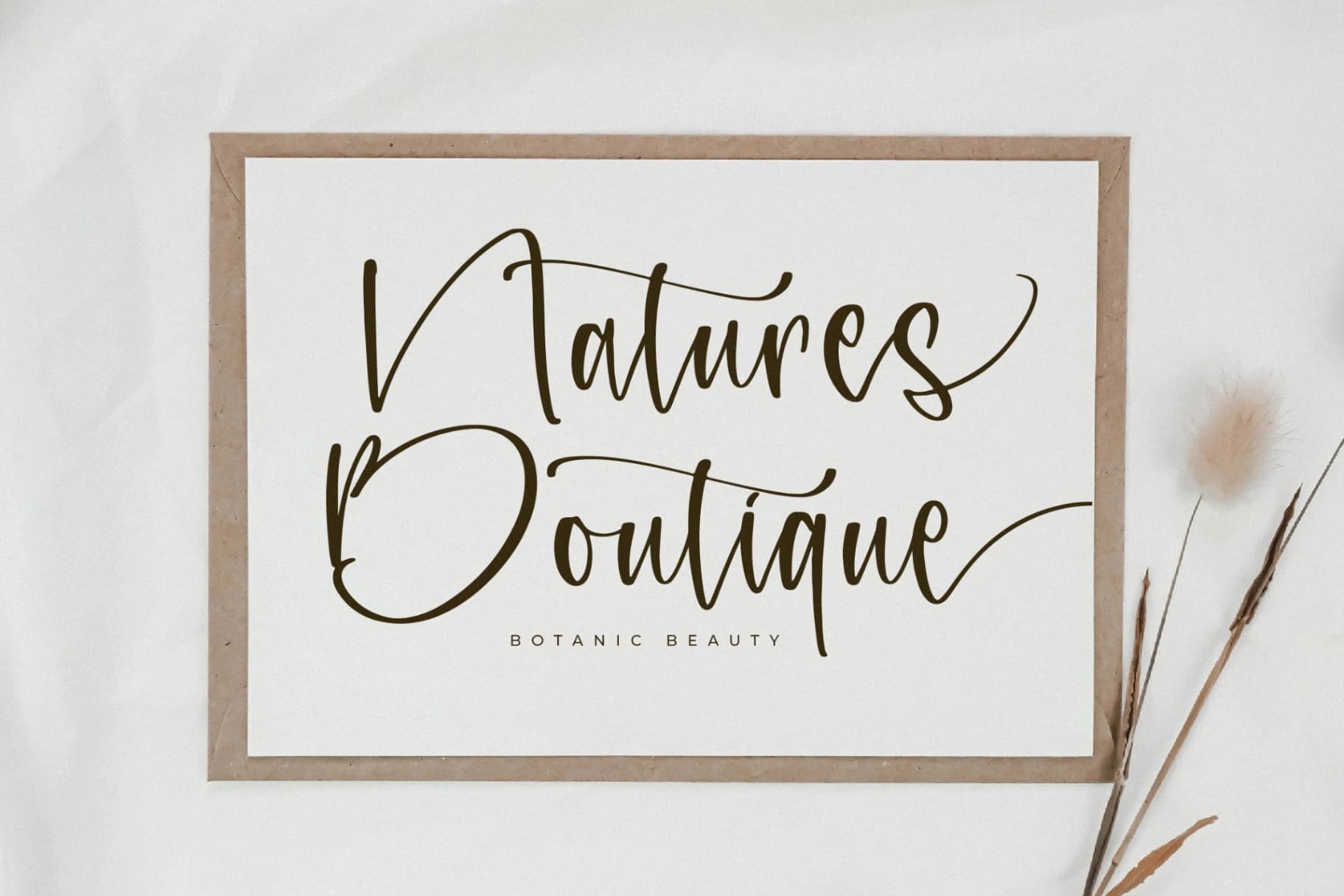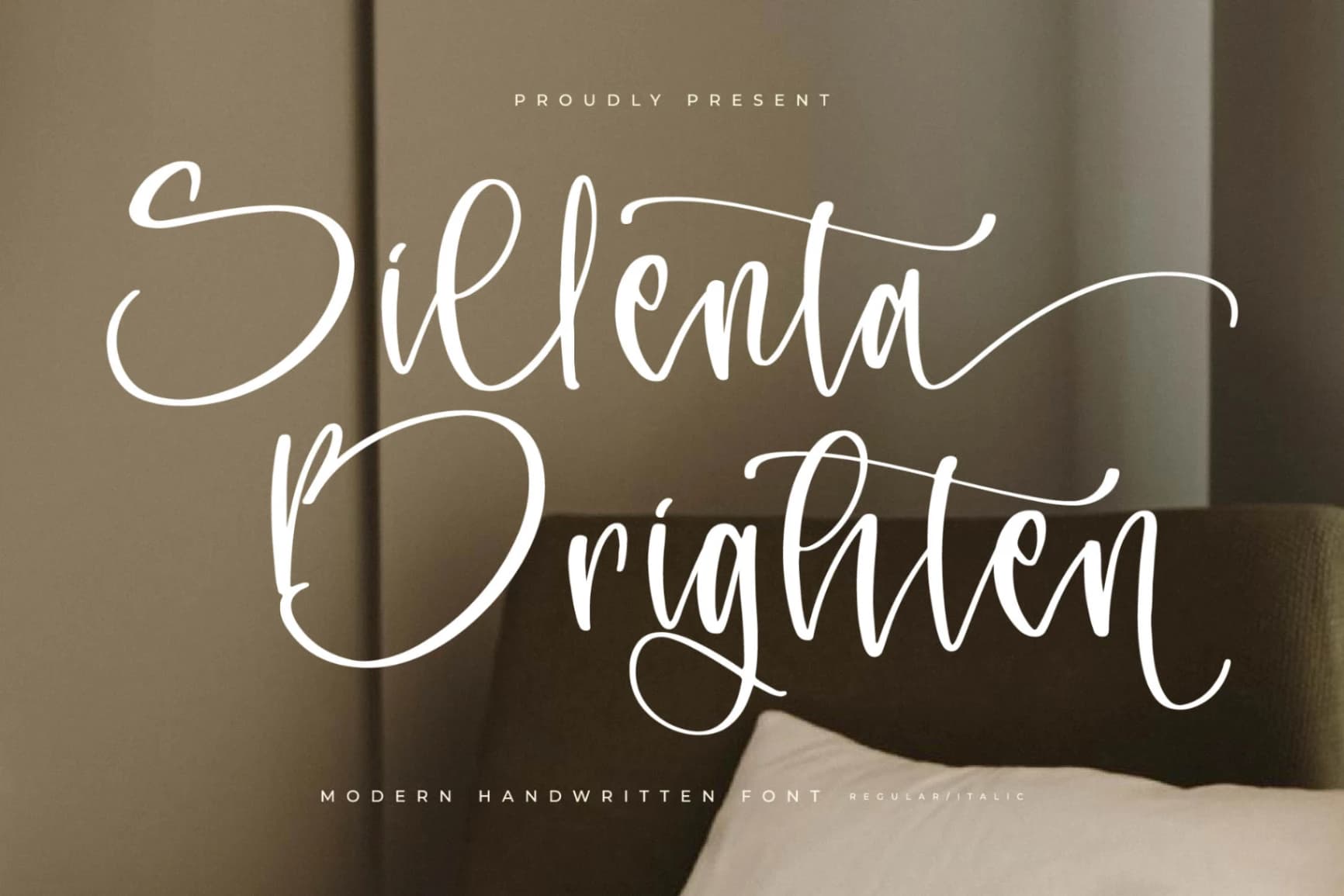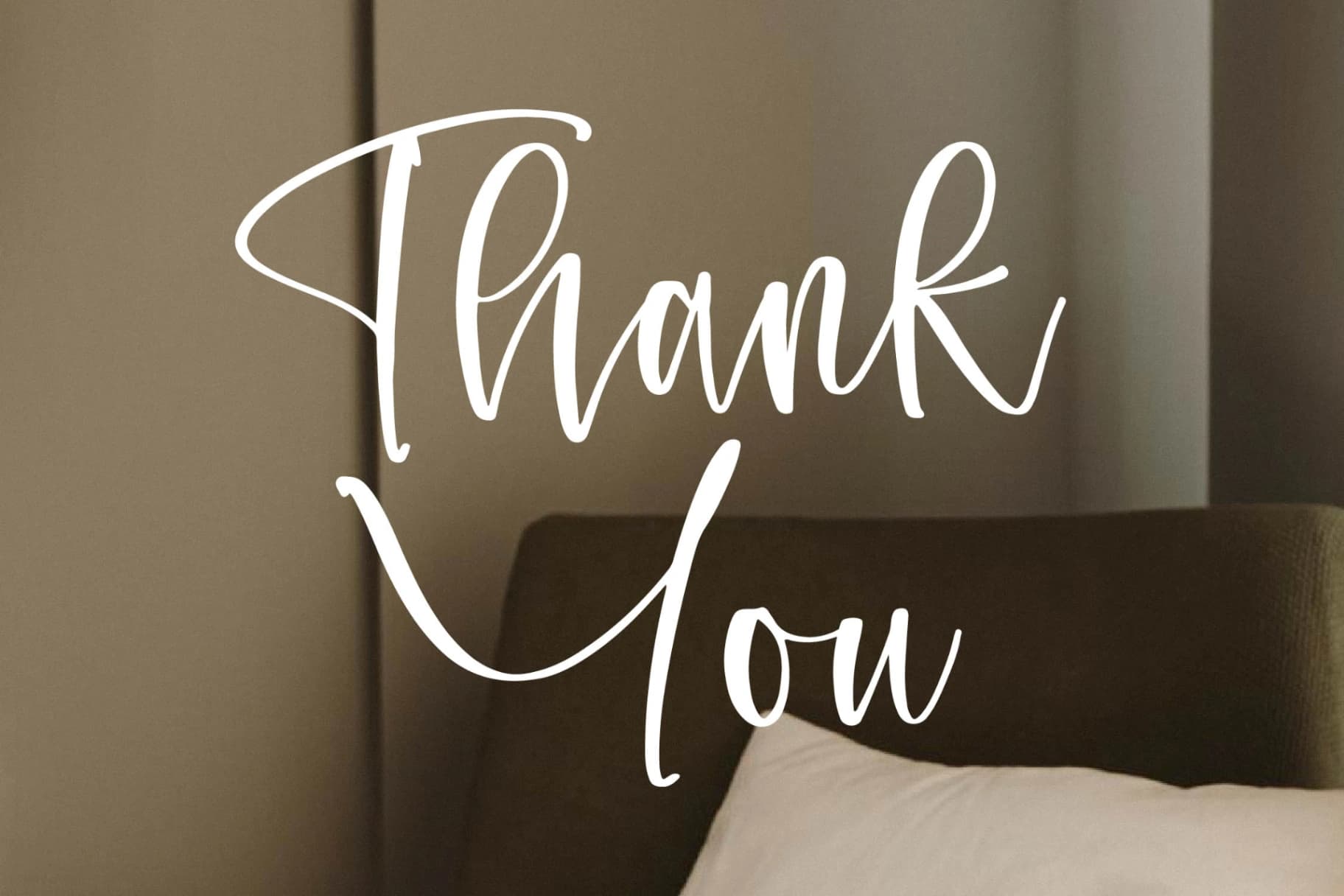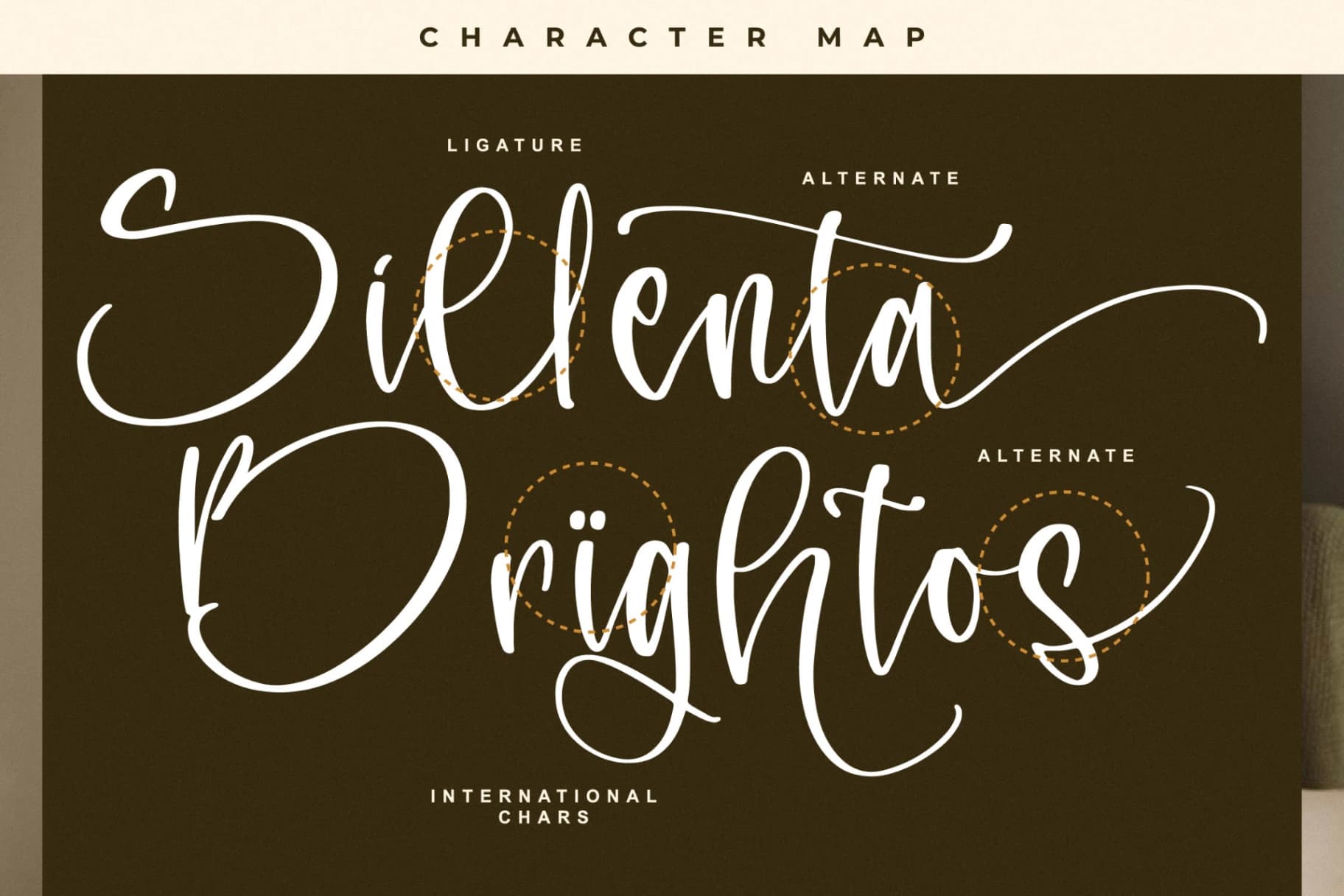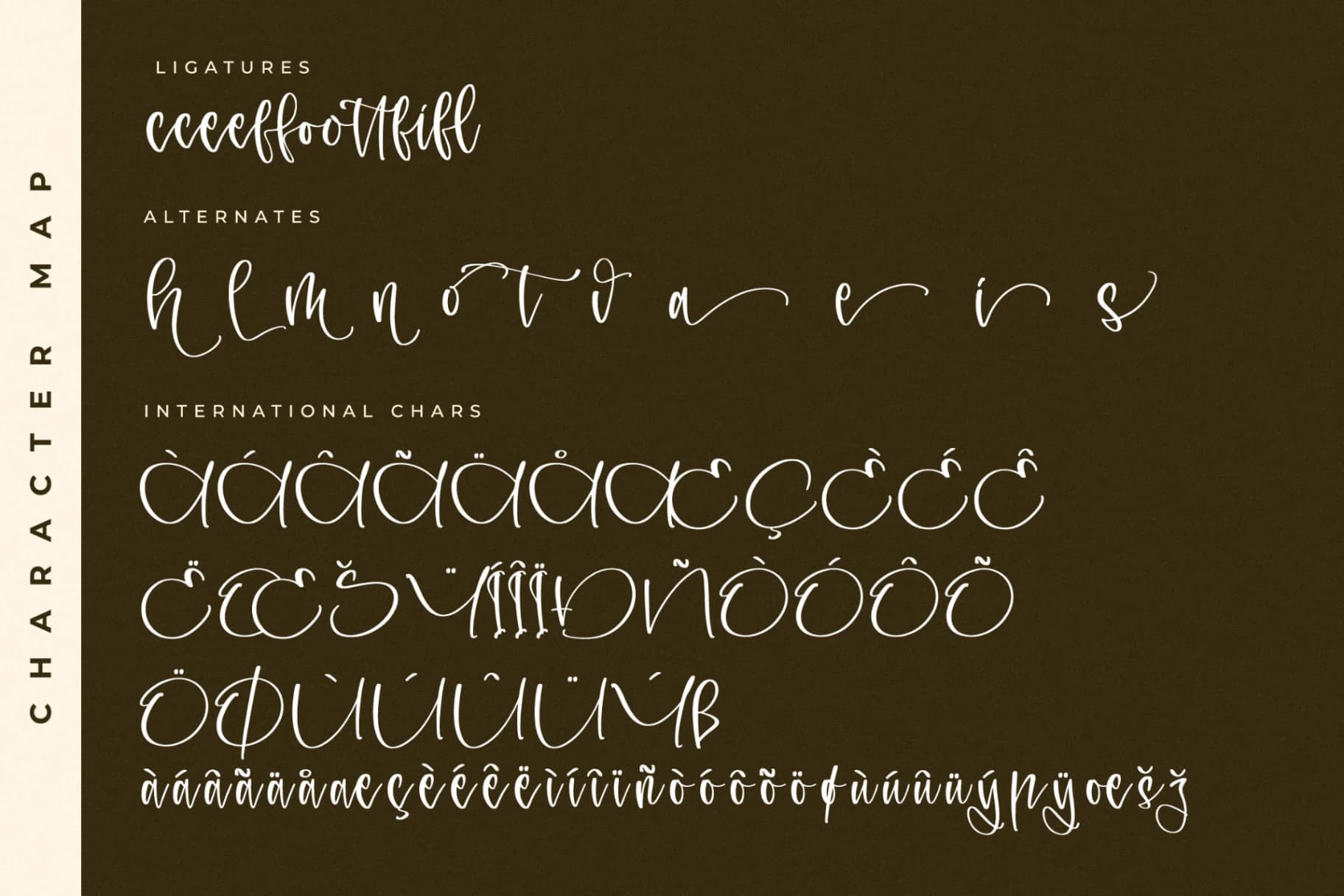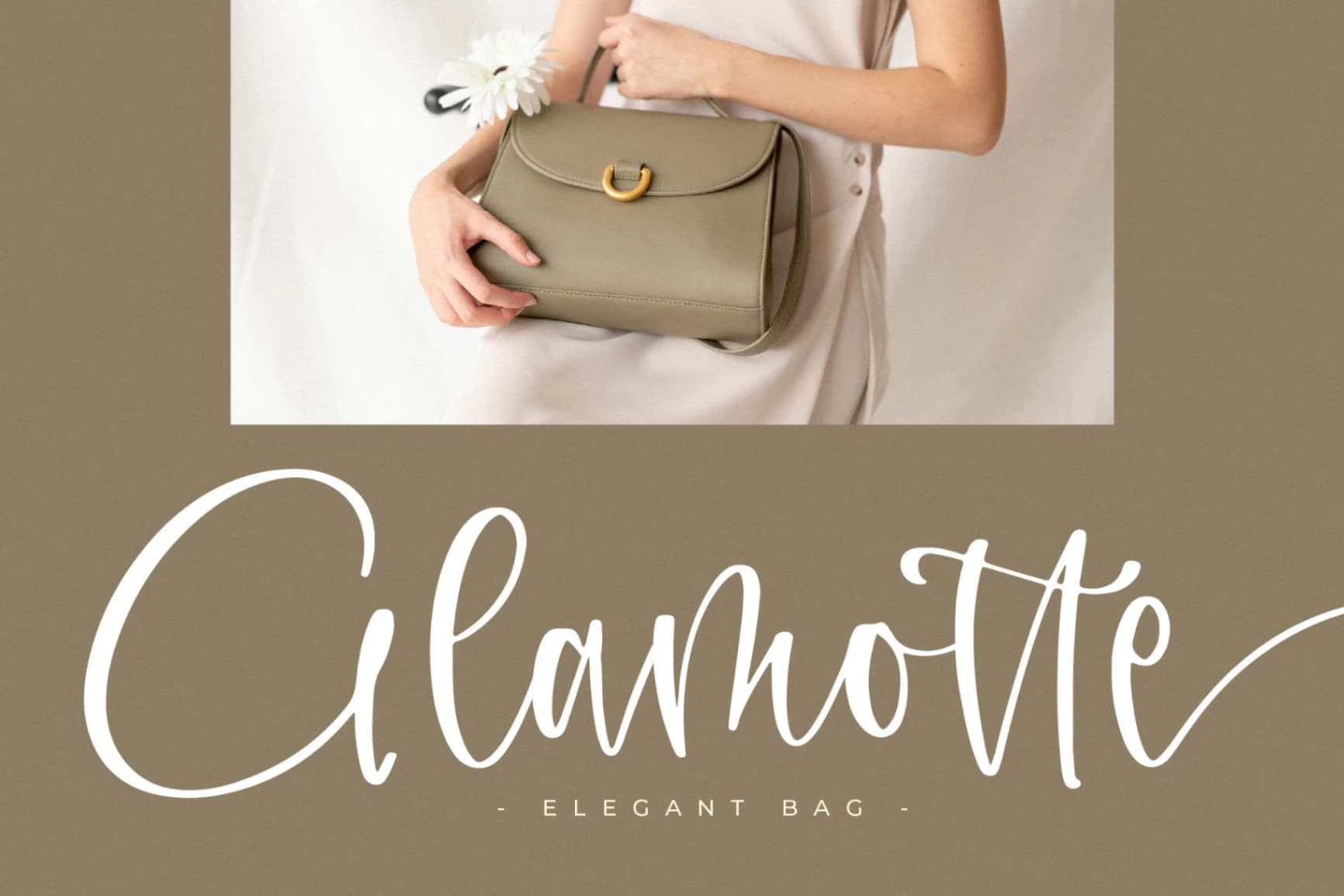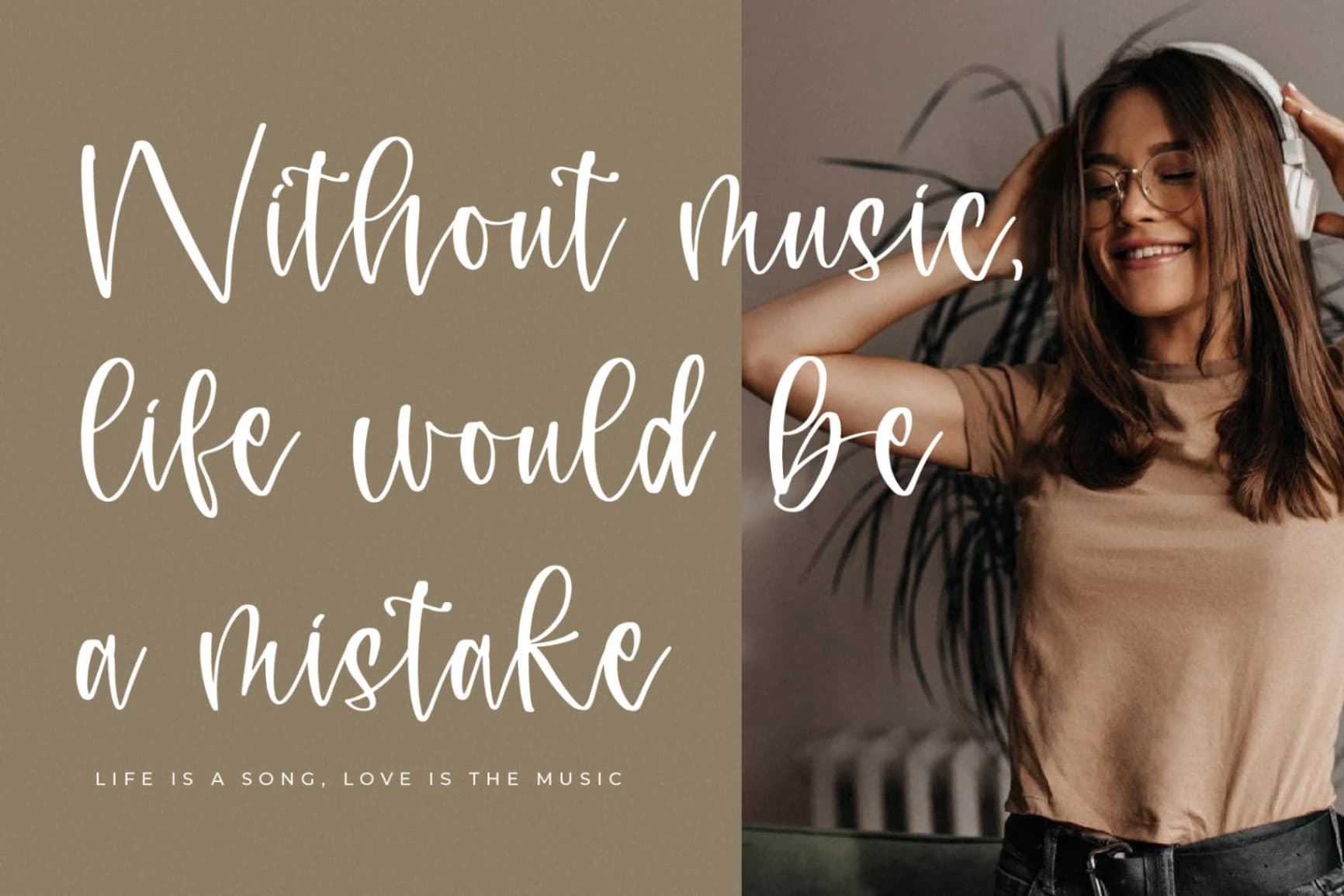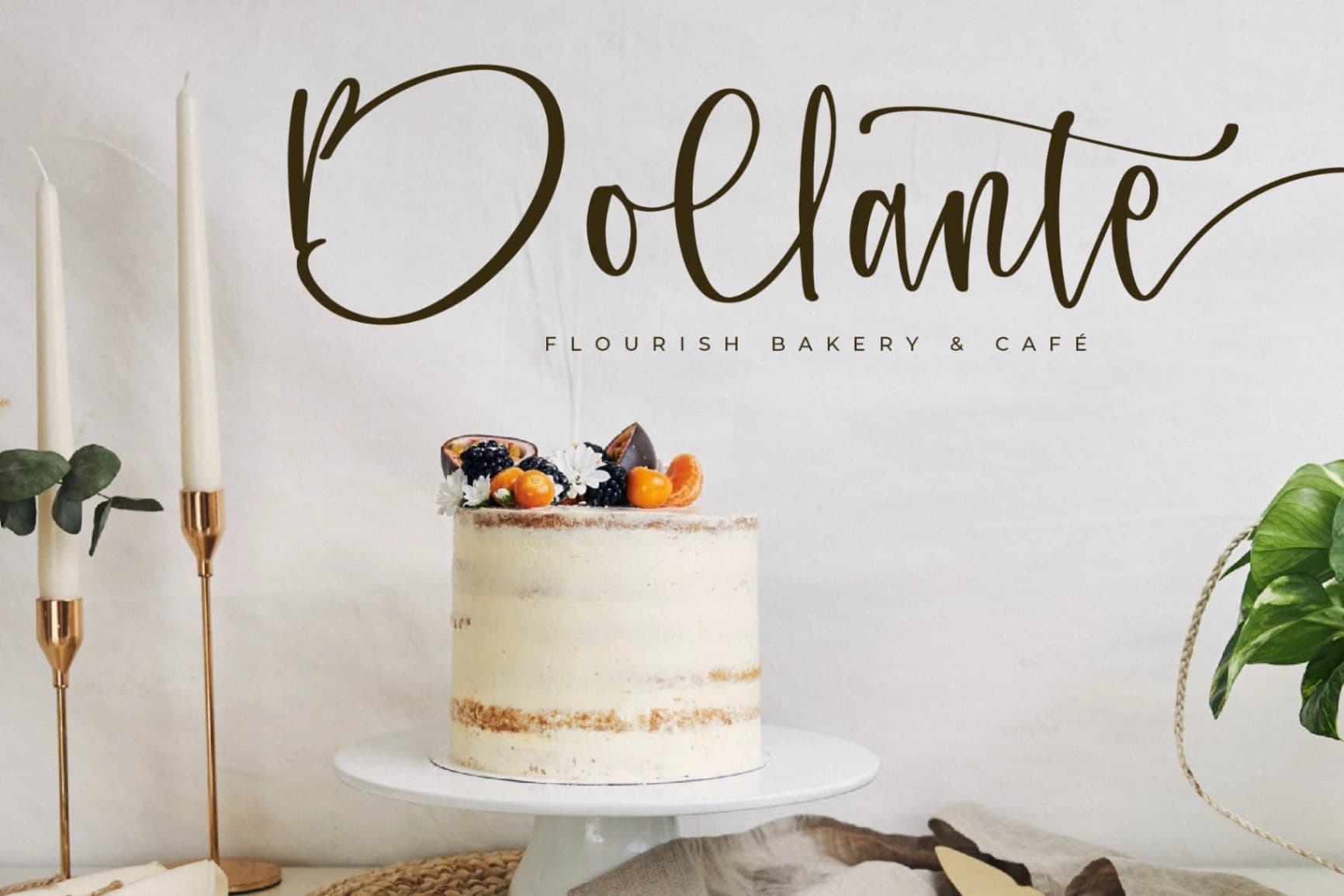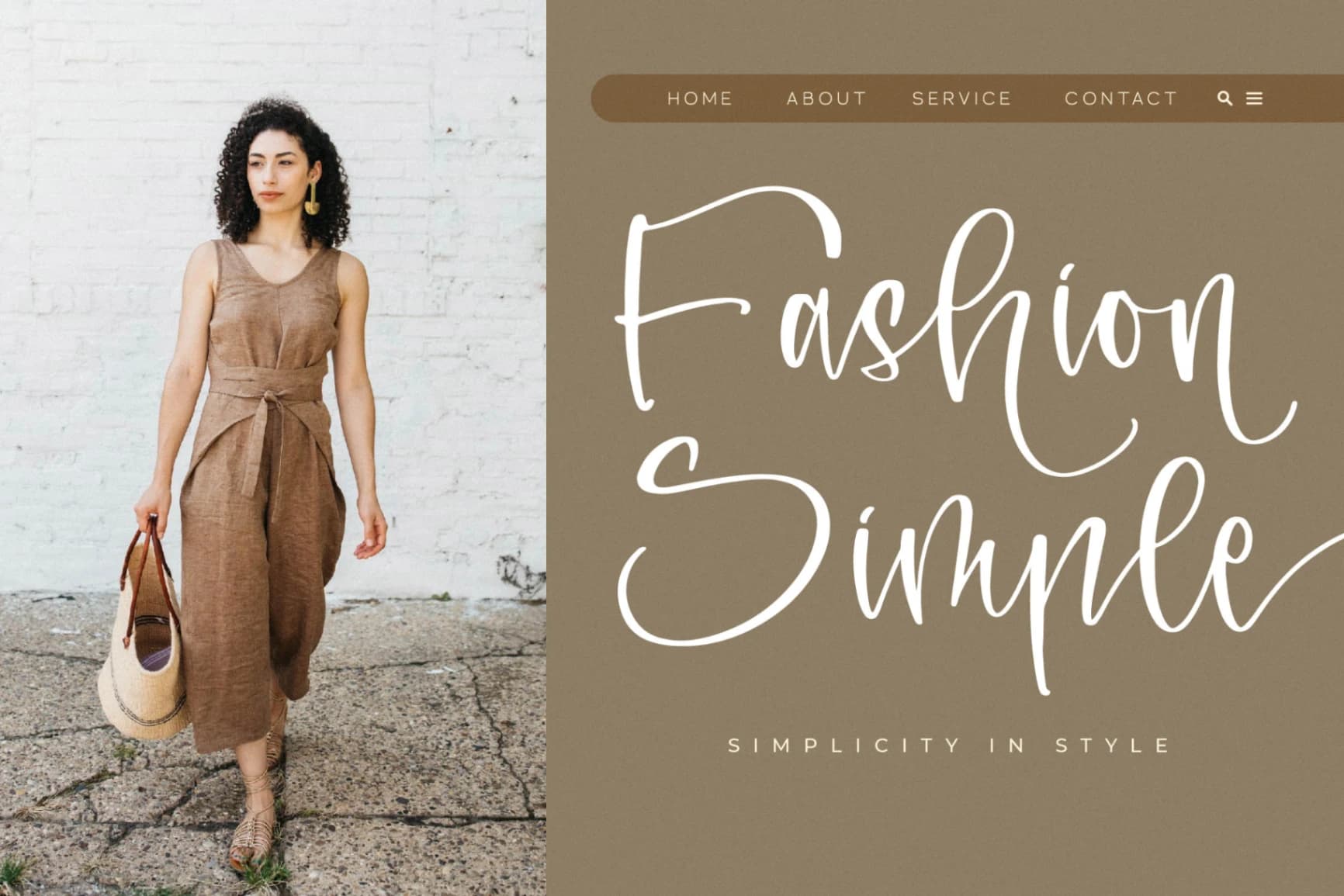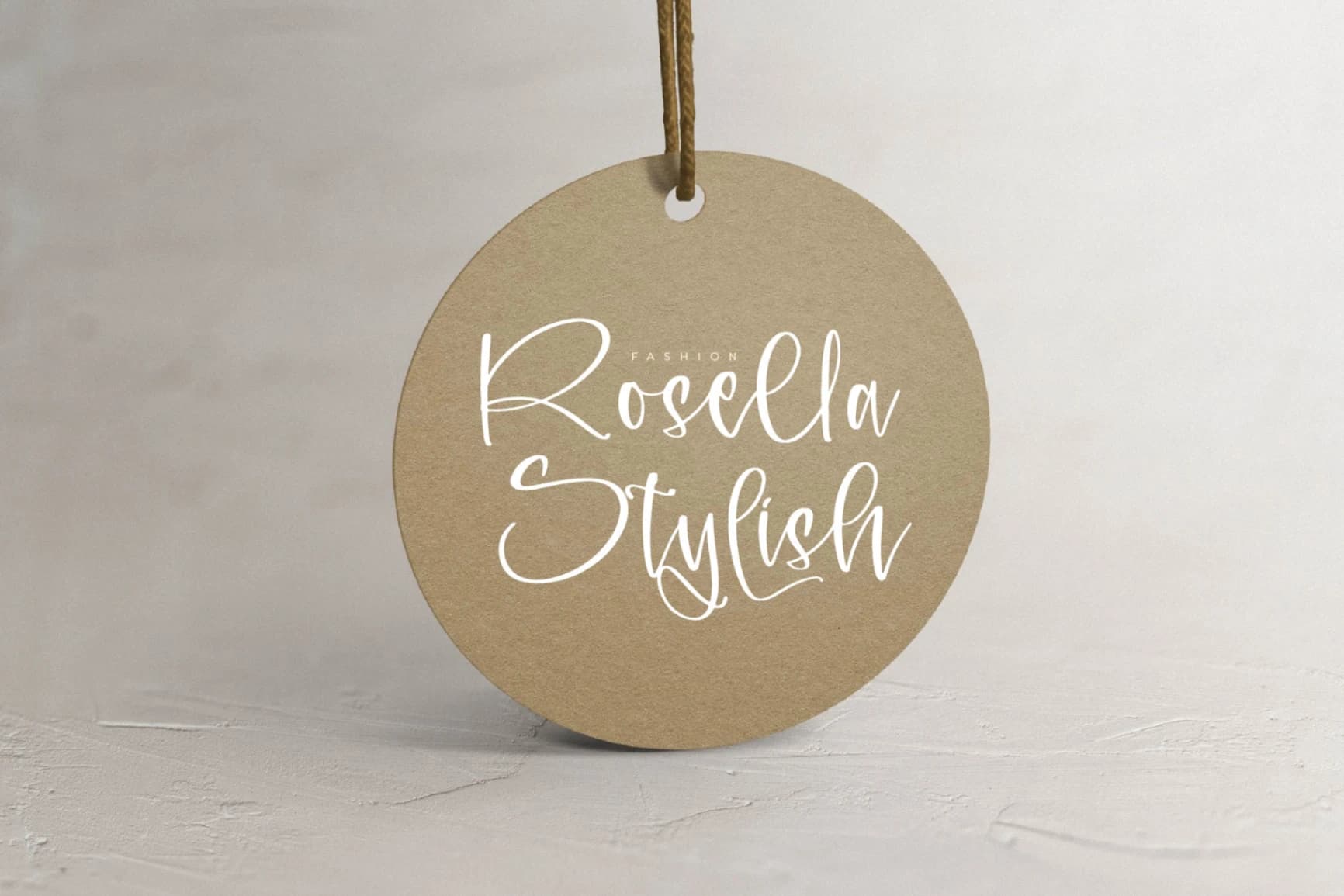
Sillenta Brighten – Modern Handwritten Font
Elevate your designs with an unparalleled touch of elegance and authenticity. Introducing Font Sillenta Brighten – Modern Handwritten Font Script, a masterpiece crafted to infuse your projects with captivating, personal charm. This exquisite modern handwritten script font exudes a sophisticated yet approachable aesthetic, making it the ideal choice for conveying warmth and high-end appeal. Its beautifully crafted curves and expressive strokes promise a lasting impression.
Experience the perfect fusion of contemporary style and human warmth. Font Sillenta Brighten – Modern Handwritten Font Script showcases a refined balance of fluid connections and distinctive letterforms, ensuring both readability and visual impact. With its extensive multilingual support, Font Sillenta Brighten – Modern Handwritten Font Script adapts seamlessly across global markets, making it incredibly versatile for international projects. This adaptability ensures your message resonates worldwide.
Unlock boundless creative potential across a spectrum of professional applications. Font Sillenta Brighten – Modern Handwritten Font Script is meticulously designed to be perfect for luxury branding, bespoke wedding invitations, engaging social media graphics, elegant product packaging, and sophisticated editorial layouts. Its intrinsic grace and unique personality make it an exceptional choice for anything requiring a personal, yet polished touch, ensuring your brand stands out.
Invest in a typeface that transcends trends and speaks volumes with every character. Font Sillenta Brighten – Modern Handwritten Font Script is more than just a font; it's an investment in compelling visual communication. Its timeless appeal guarantees that your creative endeavors will possess a memorable and enduring quality, solidifying its position as an indispensable asset in any designer's toolkit.
Alternates & Ligatures